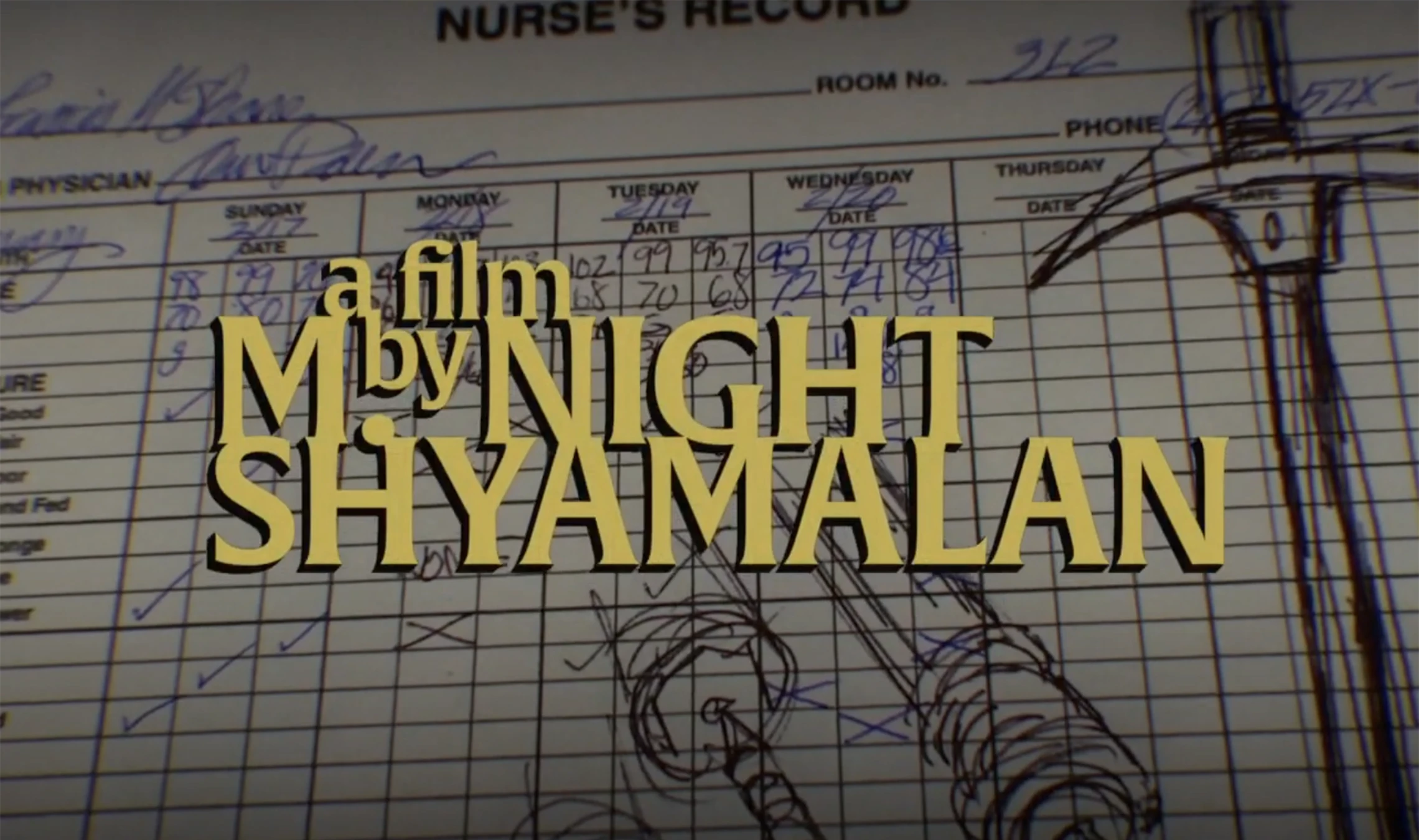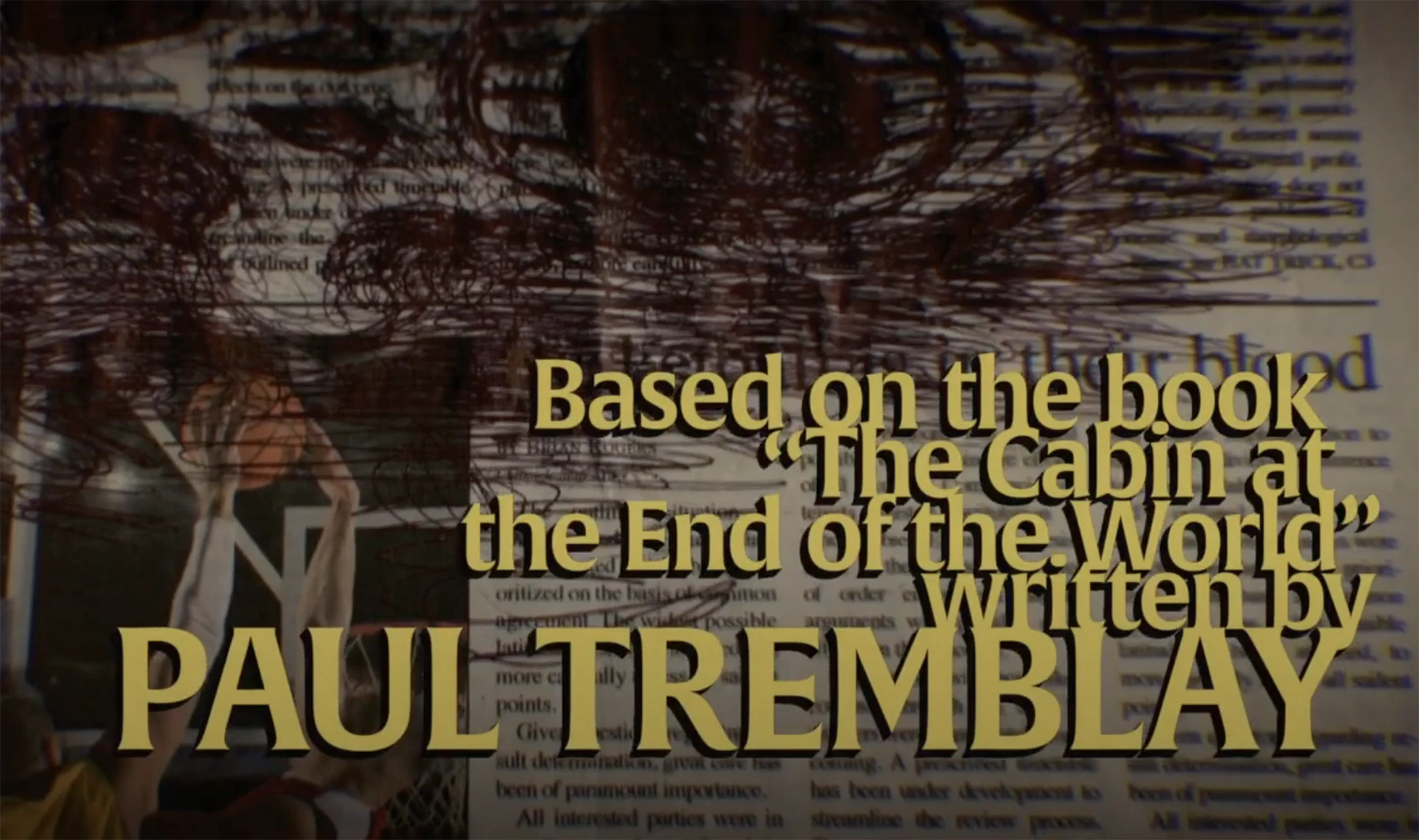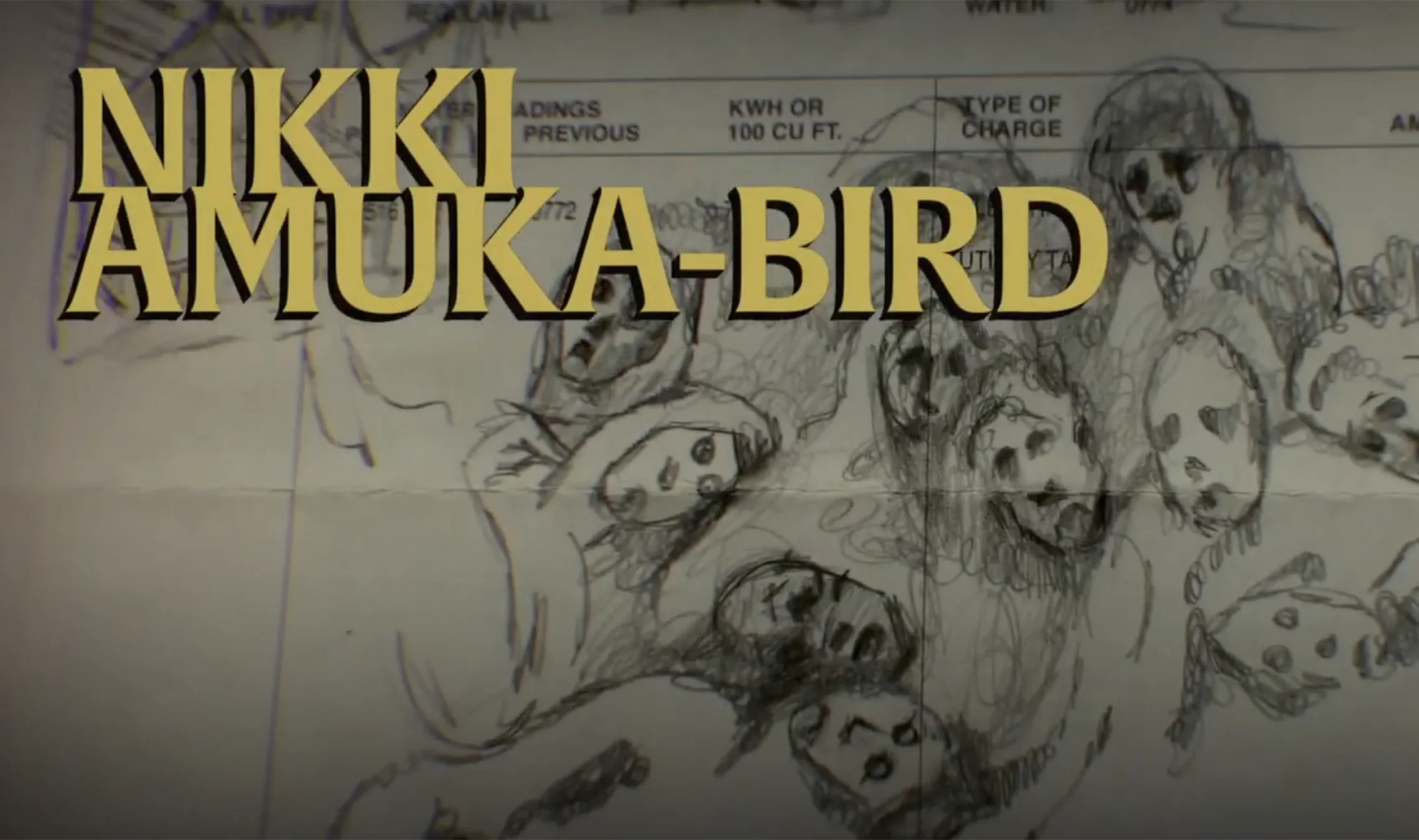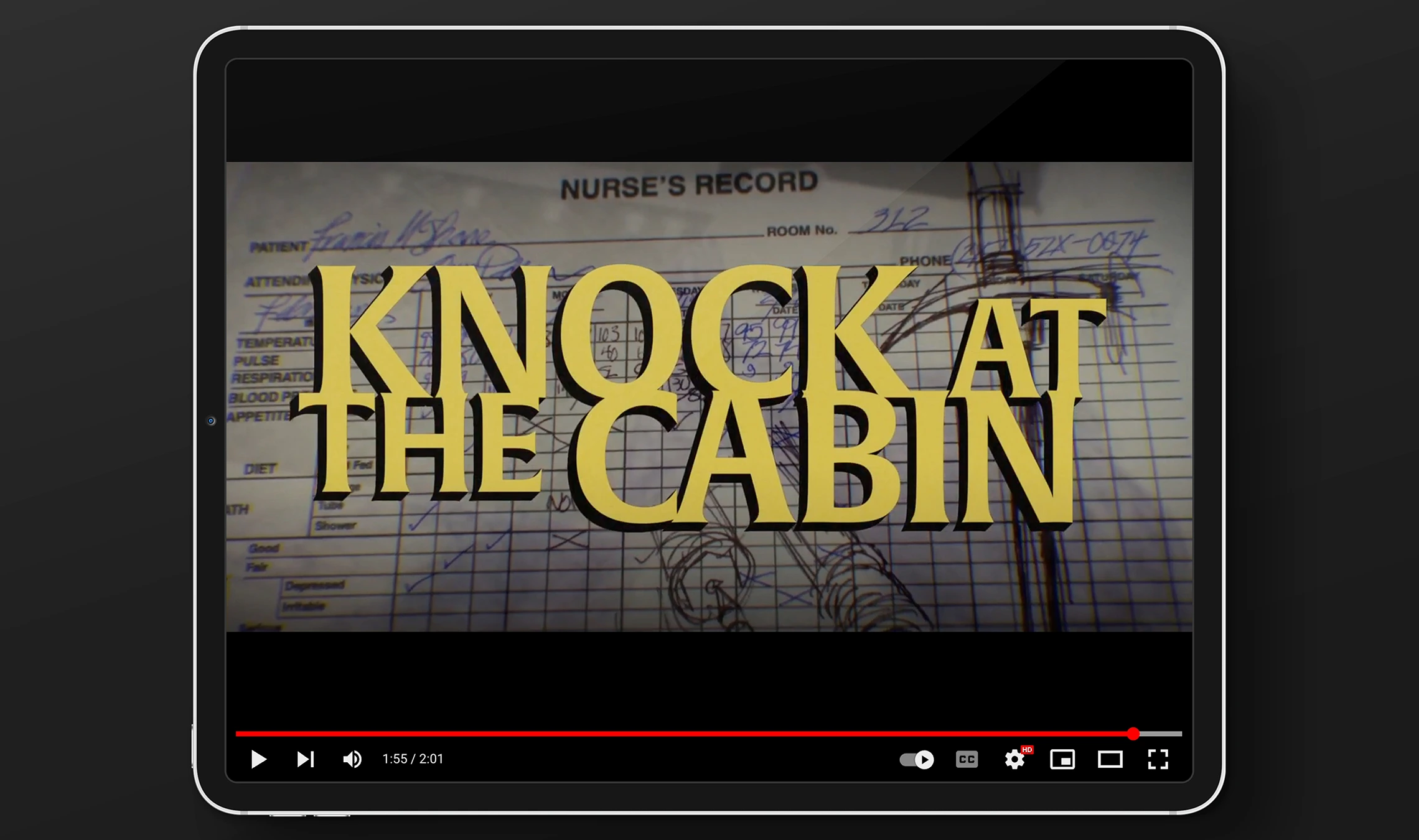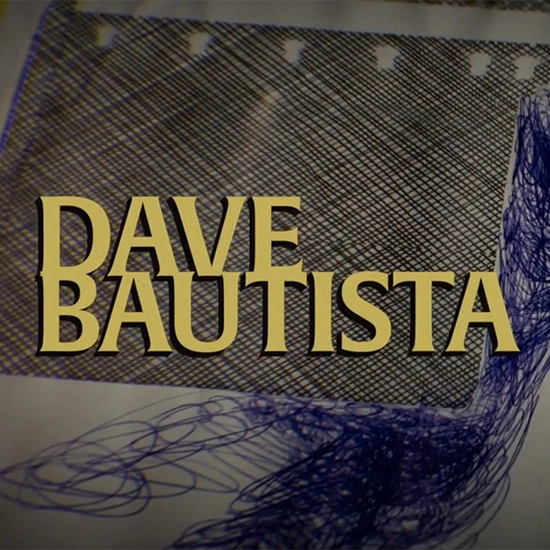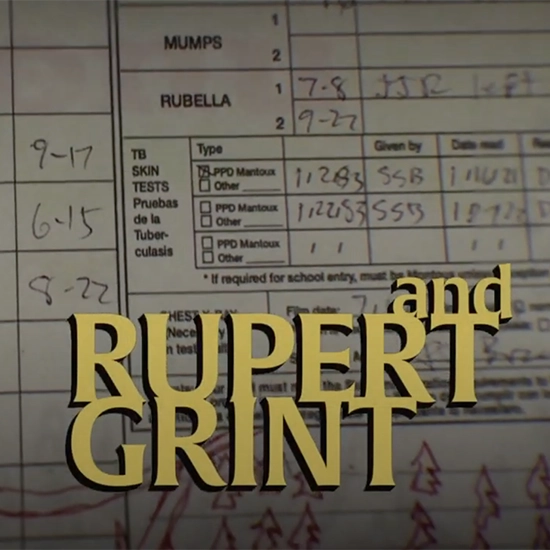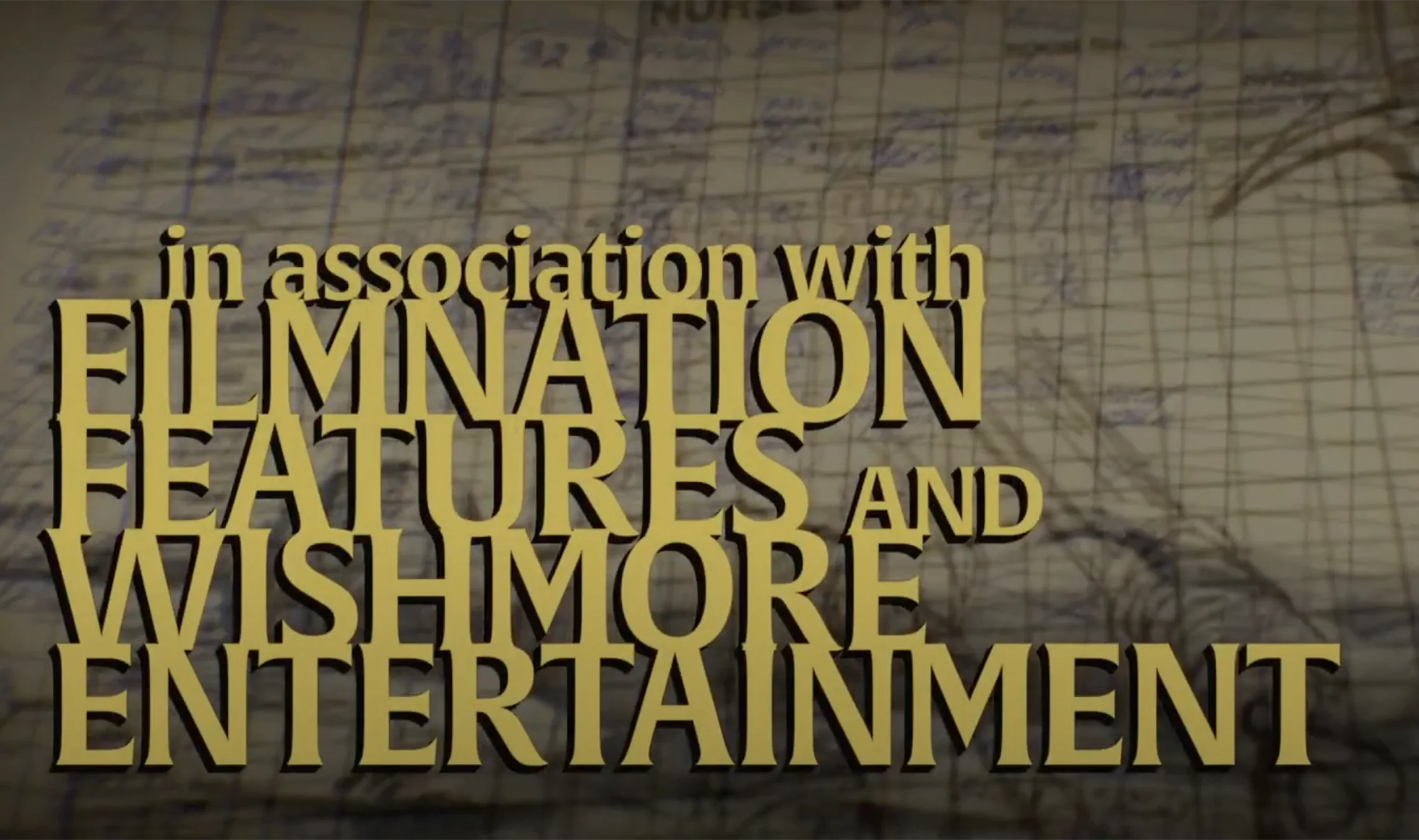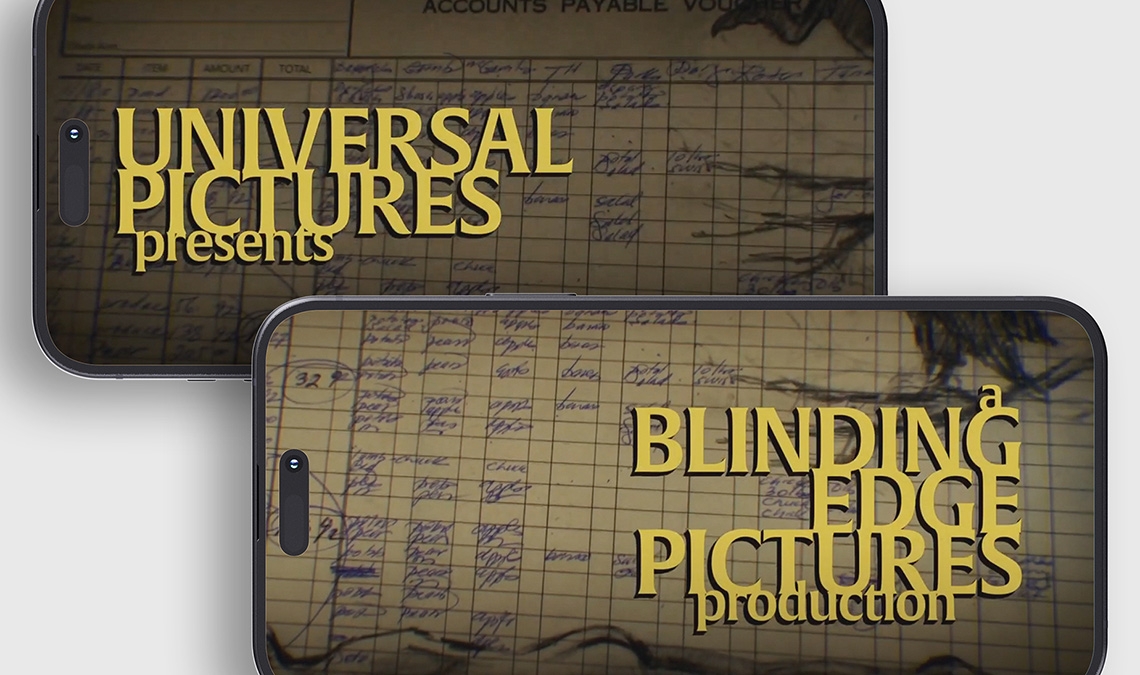
Knock, Knock: Alverata calling
Alverata has been used in opening credits for M. Night Shyamalan’s Knock At The Cabin.
Knock At The Cabin, the 2023 movie directed by M Night Shyamalan (The Sixth Sense, Unbreakable, Old), is a thriller about a blended family vacationing at a remote cabin, when they are taken hostage by four armed strangers. The visitors, led by Dave Bautista (Guardians of the Galaxy, Dune), demand they make an unthinkable choice: save their family or save humanity. The movie is based on the novel The Cabin at the End of the World by Paul G. Tremblay.
The opening credits use Dr Gerard Unger’s Alverata, a typeface with roots in the Romanesque, but able to blend seamlessly into a wide range of environments and tones. It pairs equally well in subjects from the medieval to the modern, and from regal period pieces and thrillers to dramas of high-intensity or slow-burn tension.
Alverata is Dr Gerard Unger’s resolutely modern font family inspired by his doctoral research on Romanesque type in 11th and 12th century Europe. Capital inscriptions are the basis for this face, which can be seen in its short, thorn-like serifs and flared forms. Alverata also brings in secondary considerations from the early 20th century model, but tweaks them to prevent blandness and imitation.